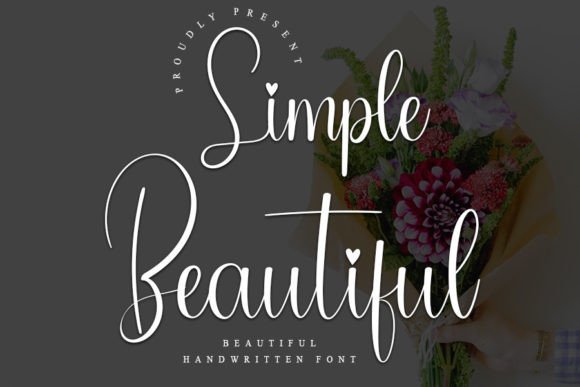
Introducing Simple Beautiful Font, an enchanting script font family that will transform your creative projects into captivating works of art.
With its graceful curves, delicate strokes, and elegant charm, Simple Beautiful captures the essence of timeless beauty. It's a perfect choice for Christmas cards, where every word carries the warmth of your heartfelt wishes.
Immerse yourself in the magic of Simple Beautiful's incredibly distinct style. Its charming personality shines through in every letter, adding a touch of sophistication and elegance to your designs. Let your creativity flourish as you craft stunning logos, heartfelt invitations, eye-catching social media posts, and captivating branding materials that leave a lasting impression.
Simple Beautiful isn't just a font; it's an experience. It's the perfect companion for expressing your individuality and creativity in every project. Whether you're a seasoned designer or just starting your creative journey, Simple Beautiful will elevate your designs to new heights of elegance and charm.
Created by the talented PiPi Creative, Simple Beautiful is a testament to the power of simplicity and beauty. Its versatility knows no bounds, making it suitable for a wide range of projects, from heartwarming Christmas cards to sophisticated branding materials.